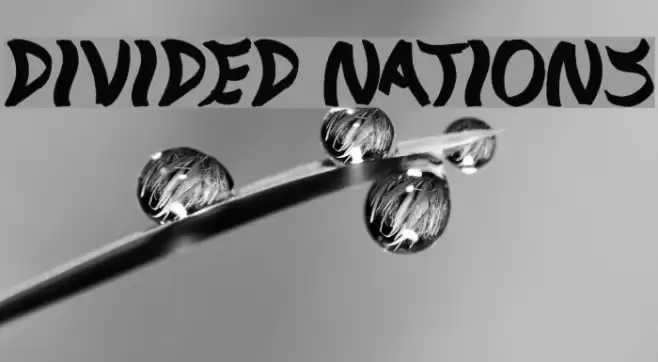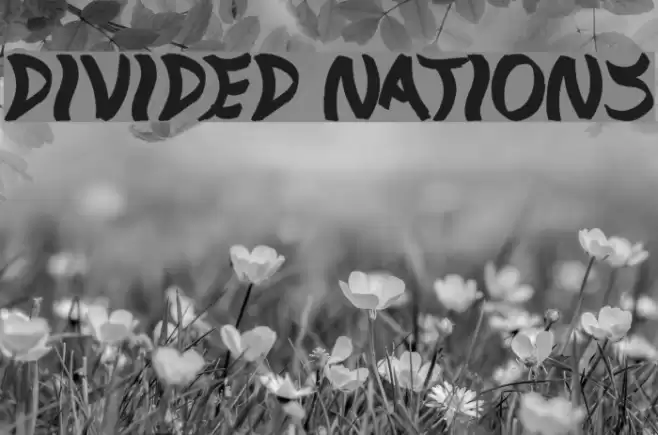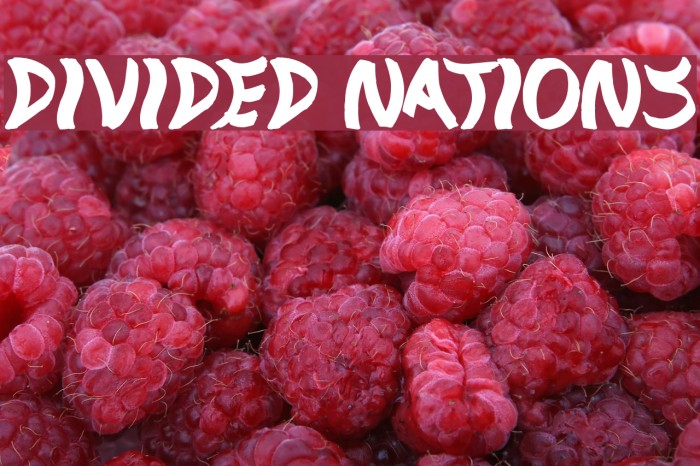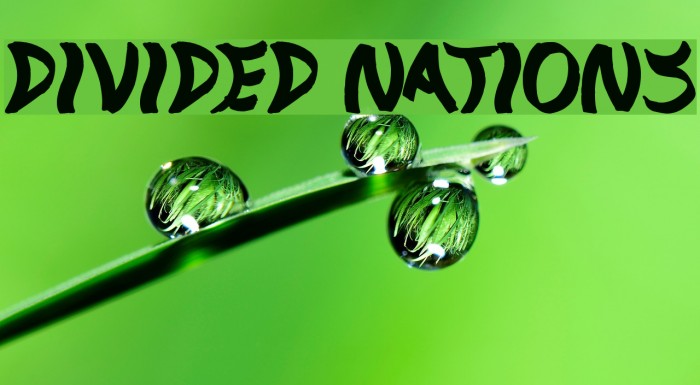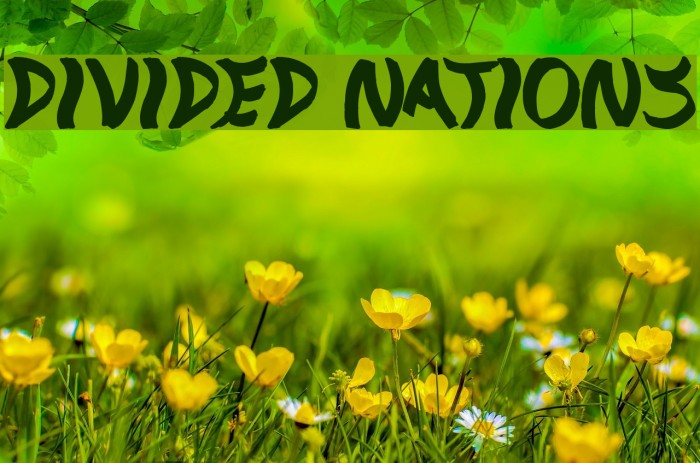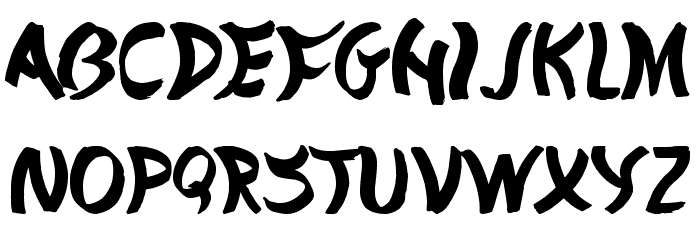
Divided Nations Font
Divided Nations Description
This font features a bold and dynamic style with a strong presence. The uppercase letters are characterized by their thick, sweeping strokes and slightly irregular shapes, giving them a hand-drawn appearance. The lowercase letters maintain this energetic style, with a consistent flow and rhythm. The numerals are bold and clear, matching the overall aesthetic of the font. Special characters are included, each designed to complement the font's unique style. This font is ideal for projects that require a bold and artistic touch, such as posters, branding, or creative headlines.
A bold, dynamic font with a hand-drawn, artistic style from Uncategorized fonts.
- Proposed Projects: Ideal for posters, branding, creative headlines, and artistic designs.